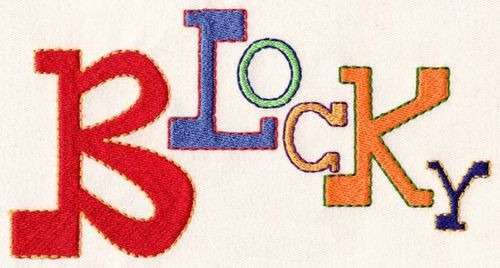
121 Blocky Fill/Outline Font
Blocky Font features fill stitched centers with triple stitched outlines. Set includes uppercase letters only in 1, 2, 3 & 4 inch sizes. Mix sizes as shown in the stitch sample.